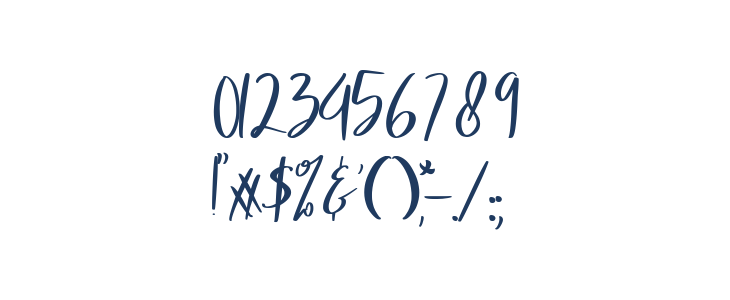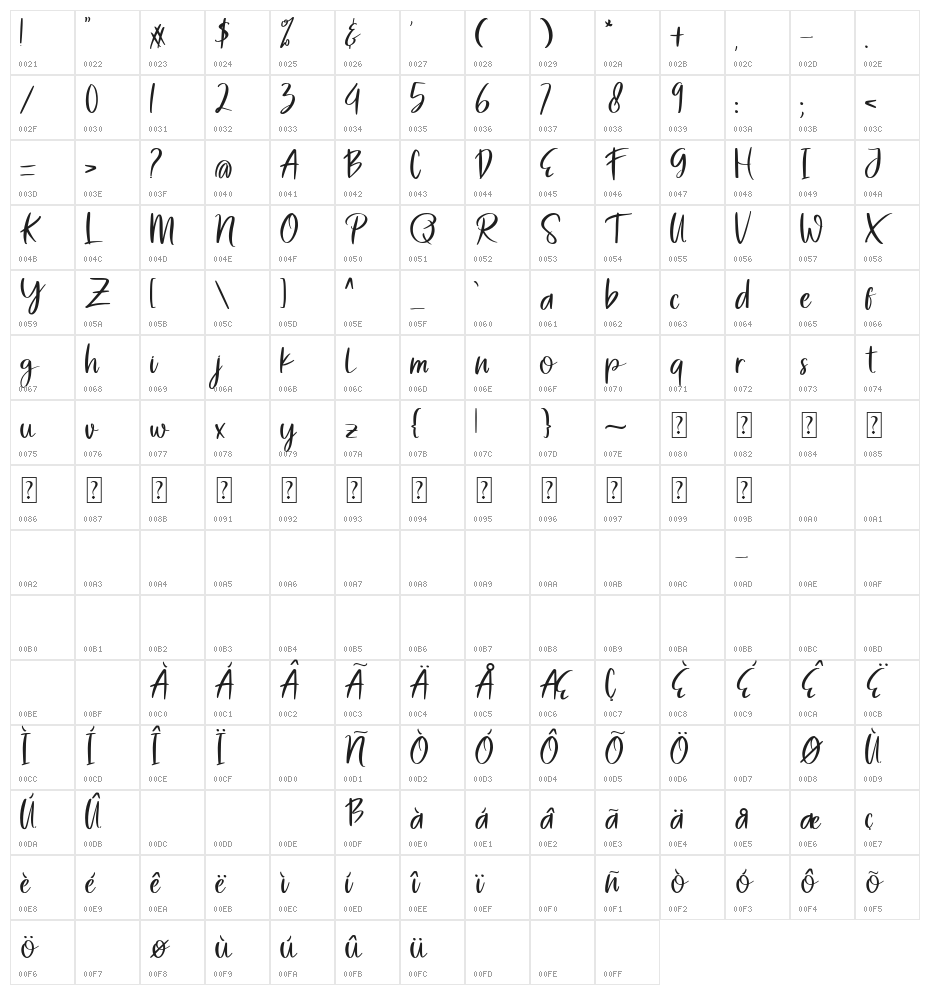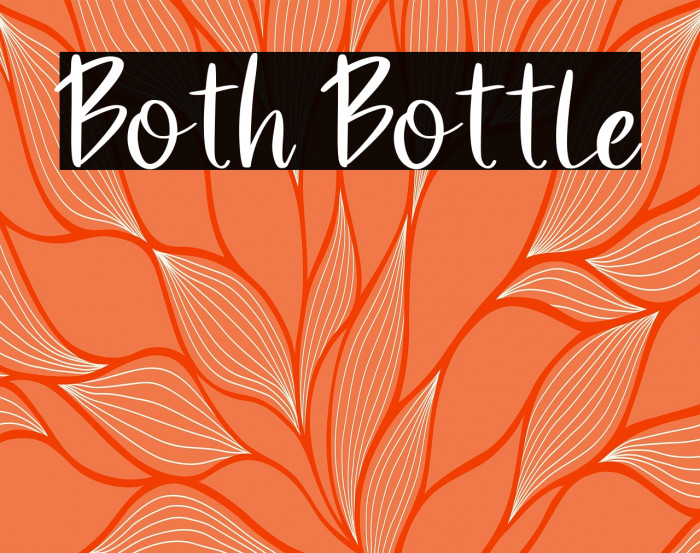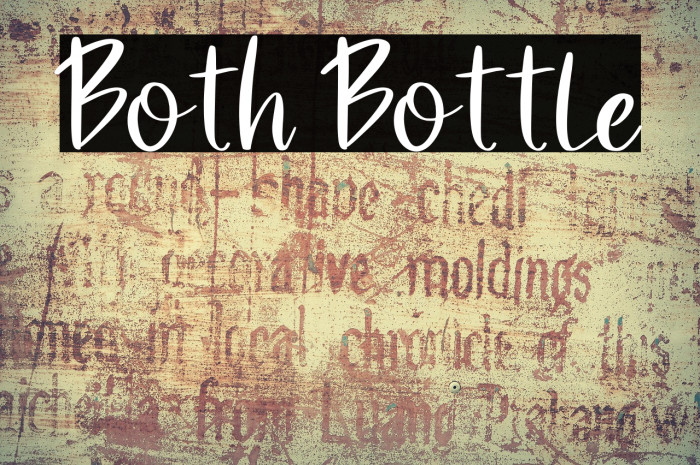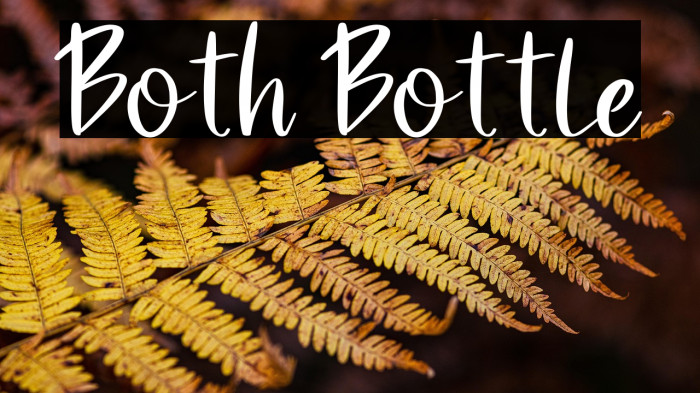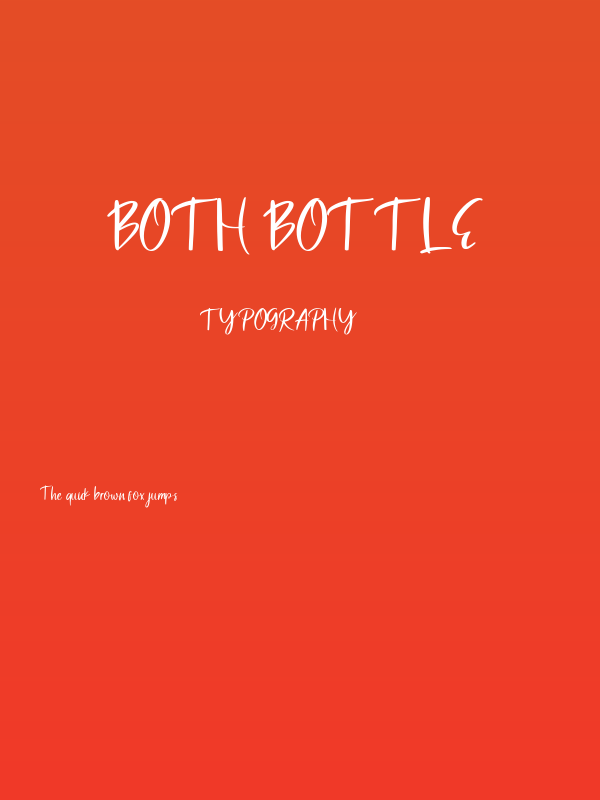
Both Bottle Font
Both Bottle Description
This font features a lively and expressive handwritten style, characterized by its fluid and dynamic strokes. The uppercase letters are bold and slightly slanted, giving a sense of movement and energy. The lowercase letters maintain a consistent flow, with some characters exhibiting unique loops and curves that add to its charm. The numerals are distinct and maintain the playful nature of the font. Special characters are creatively designed, fitting seamlessly with the overall aesthetic. This font exudes a casual yet artistic vibe, making it suitable for creative projects.